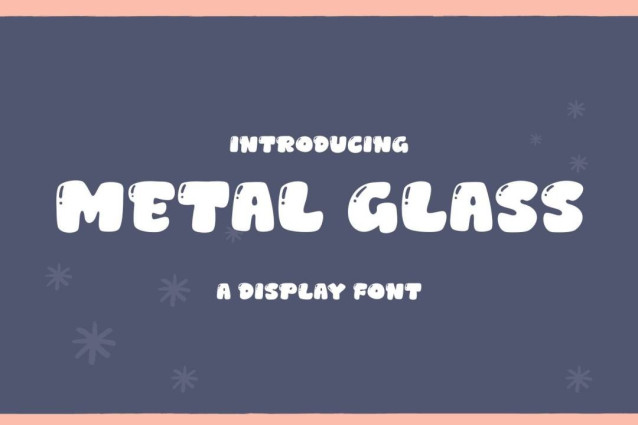
Metal Glass Font
Metal Glass Font is a simple and modern display font suitable for quotes, logos, headings, titles, and many more. Use it on any of your creative projects, and your designs will become outstanding!